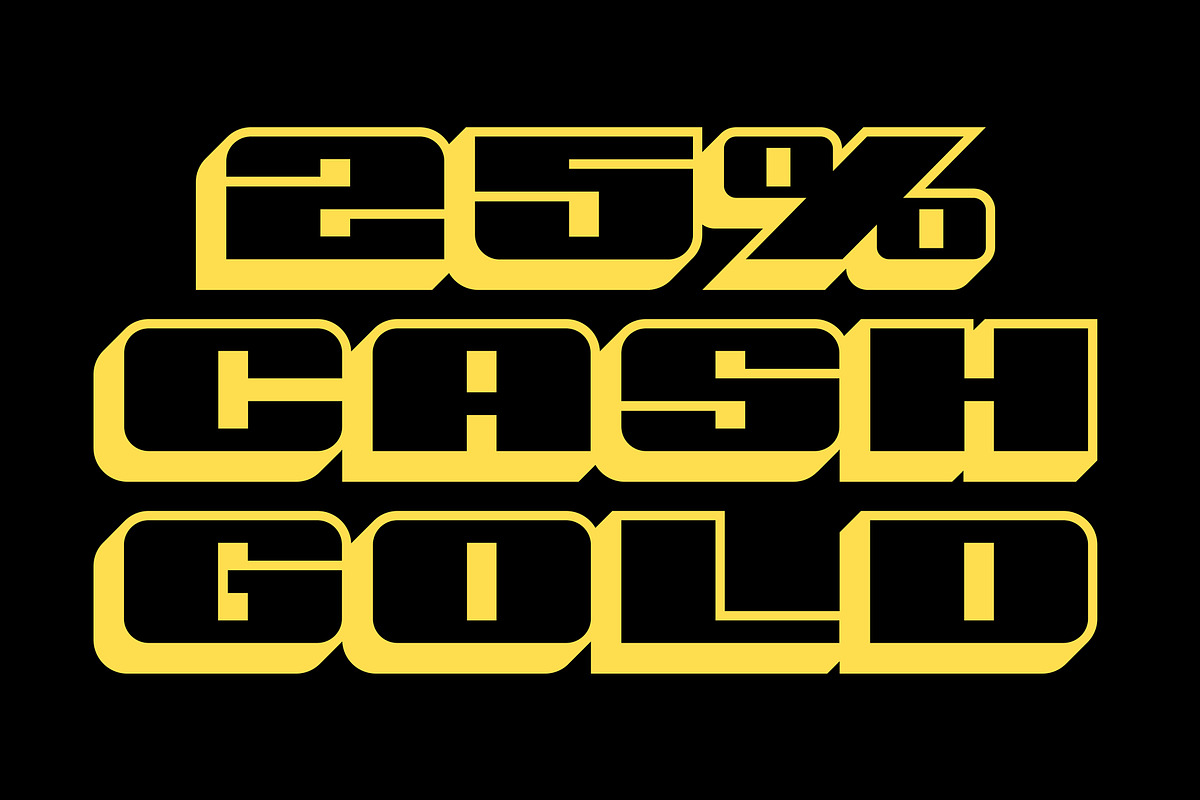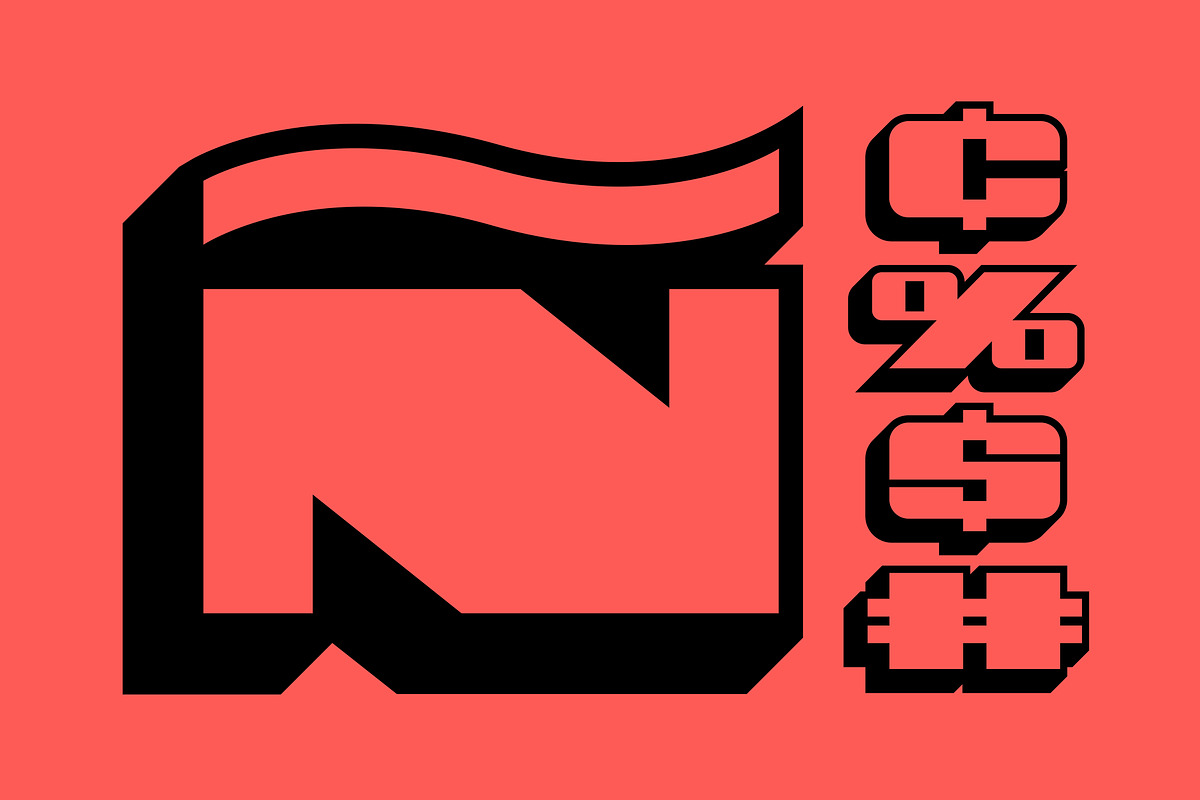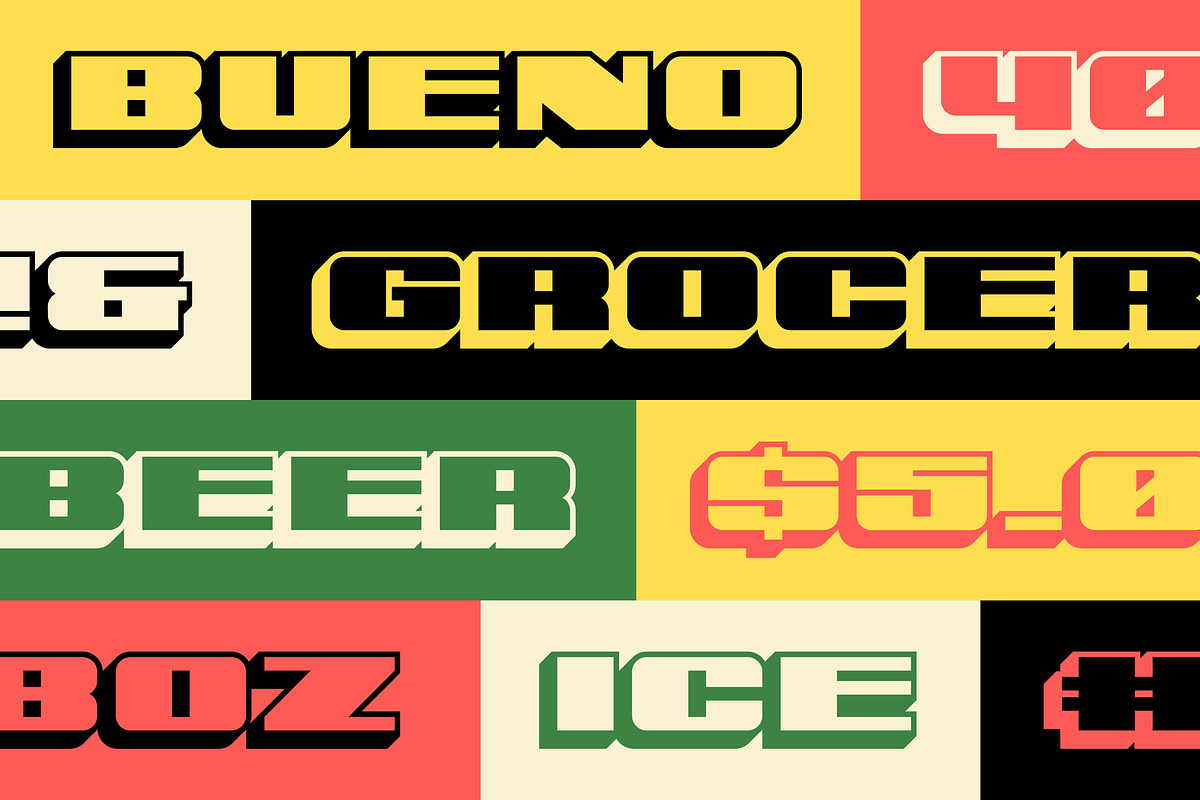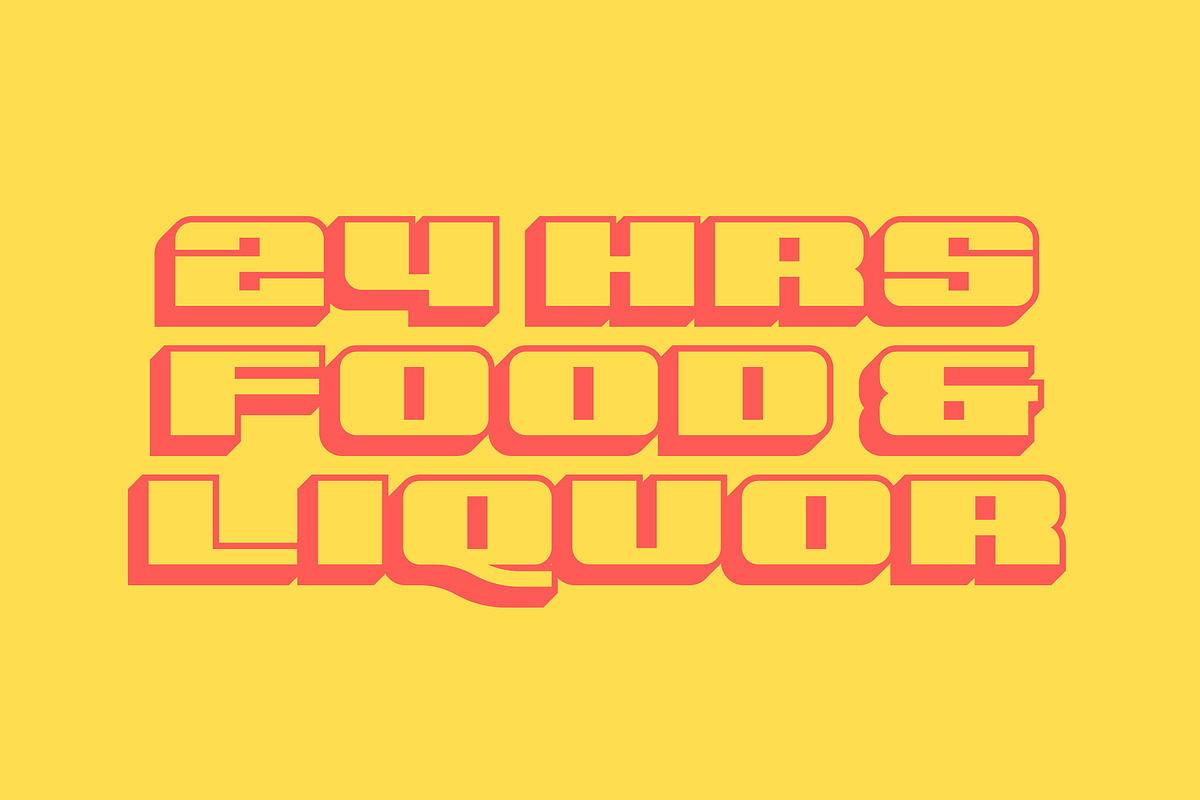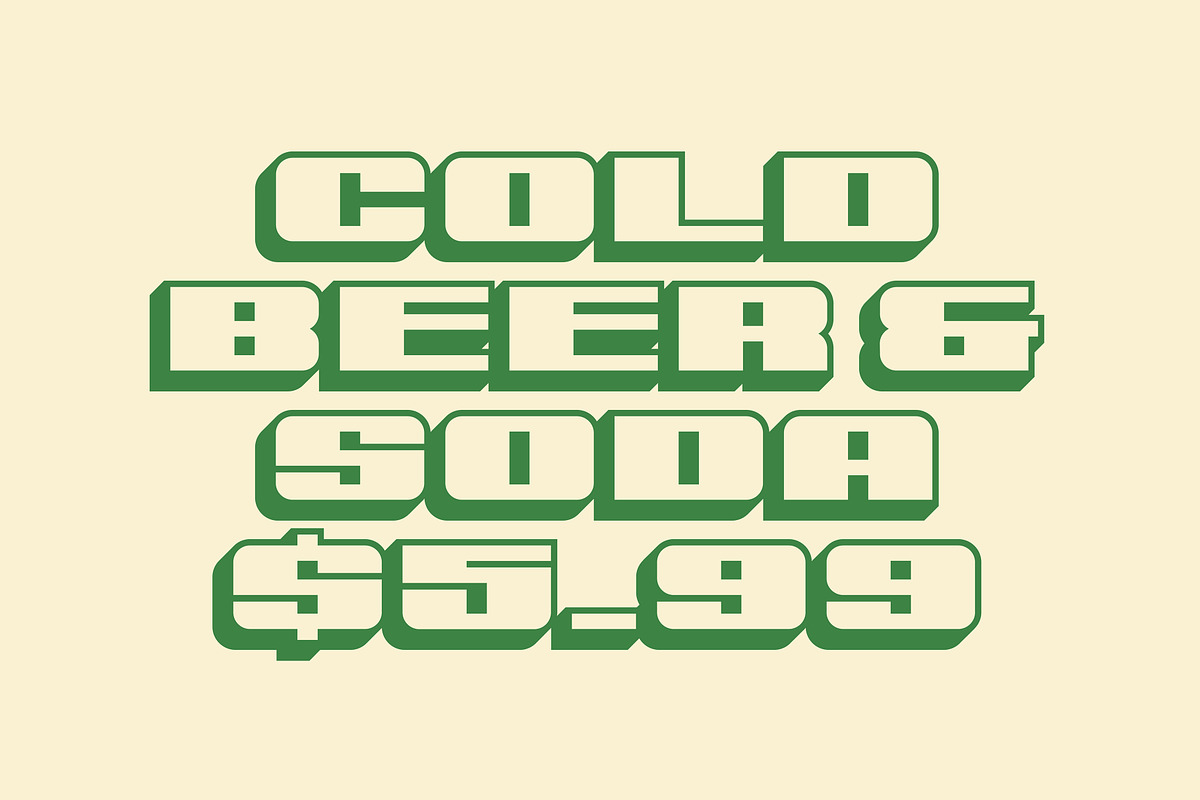
BUENO Font
Bueno is an extremely bold, blocky, hard-to-miss display font inspired by hand-painted bodega lettering on glass windows, brick walls, and bright yellow awnings.